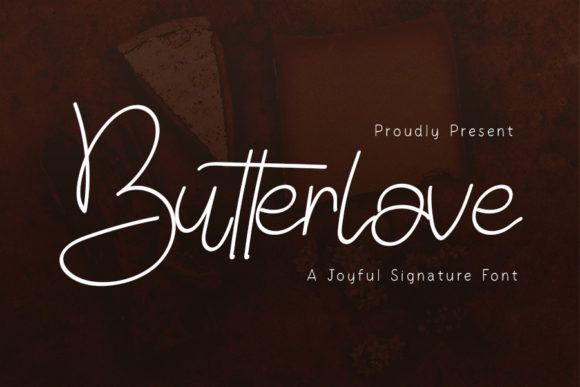
The Butterlove Font: A Sweet Addition to Your Design Toolkit
I’ll never forget the time I was working on a project for a client who wanted a elegant, yet playful font to match their brand’s personality. I spent hours scouring the internet for the perfect script font, but nothing seemed quite right. That was until I stumbled upon Butterlove Font. This stylish and delicate script font has been a game-changer for my designs, and I’m excited to share my experience with you.
• ✨ **Clean and smooth vibe**: Butterlove Font has a thin, smooth quality that makes it perfect for designs where you want to add a touch of elegance.
• ✅ **Highly legible**: Even at small sizes, this font remains clear and easy to read.
• 💫 **Versatile**: From wedding invitations to branding materials, Butterlove Font can adapt to any design style.
While Butterlove Font is an excellent choice for many designs, there are a few things to keep in mind:
• 🤔 **Limited character set**: As with many script fonts, the character set may be limited, so be sure to check the font includes the characters you need.
• ⚠️ **Not suitable for body text**: Due to its delicate nature, Butterlove Font is best used for headings or titles rather than large blocks of text.
The Story Behind Butterlove Font
Butterlove Font was designed with the intention of creating a beautiful, elegant script font that’s both versatile and easy to read. The designer aimed to create a font that would be perfect for a range of design projects, from wedding invitations to branding materials. While the exact story behind the font’s creation may be unknown, it’s clear that Butterlove Font was designed with love and care.
Q: What type of designs is Butterlove Font best suited for?
A: Butterlove Font is perfect for designs where you want to add a touch of elegance and sophistication, such as wedding invitations, branding materials, and packaging.
Q: Is Butterlove Font available in different weights or styles?
A: This may vary depending on the specific version of Butterlove Font, but many script fonts are available in multiple weights or styles, such as bold or italic.